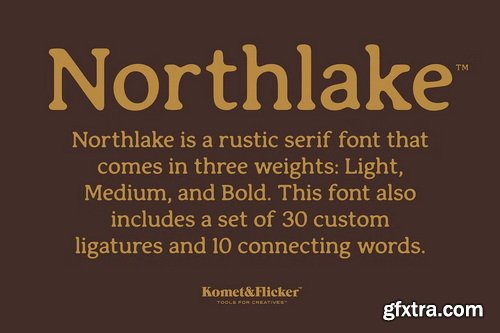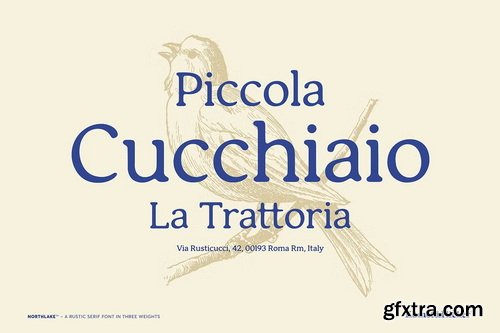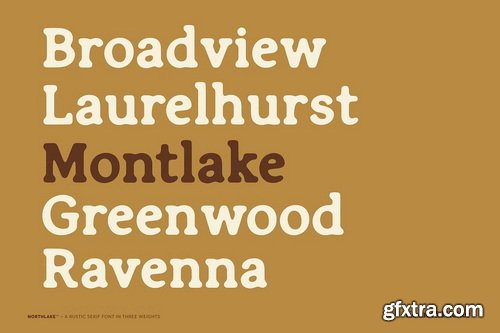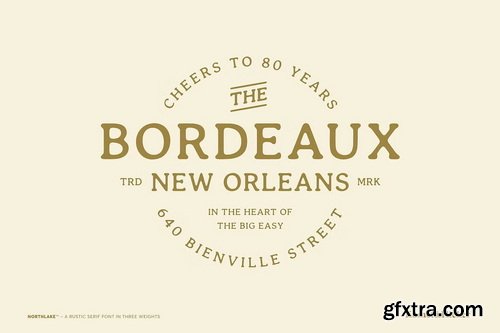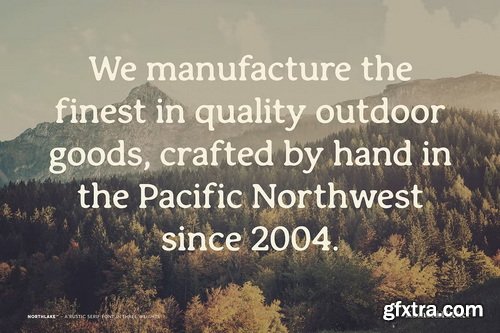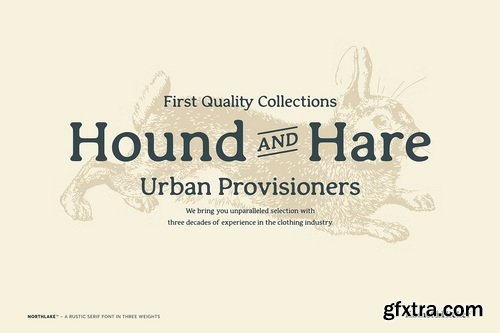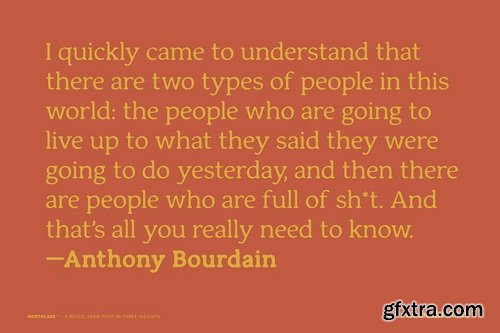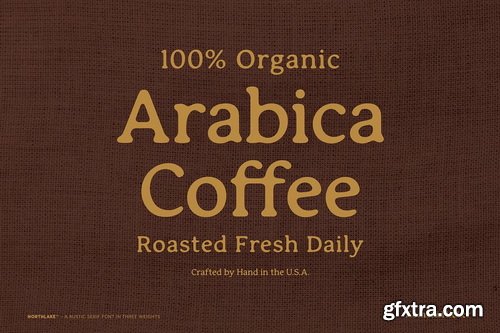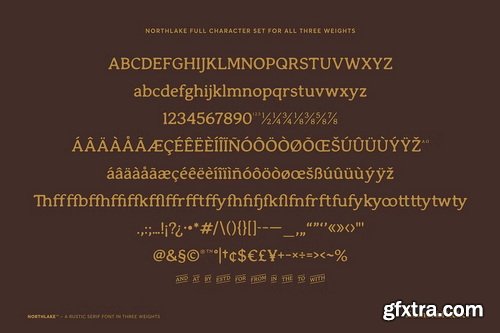
CreativeMarket - Northlake - A Rustic Serif Font
Introducing Northlake, a rustic serif font with a timeless charm. With its smooth, round edges and vintage appeal, Northlake evokes the warmth and authenticity of a well-worn classic. Whether you're designing bold headlines or crafting longer blocks of text, Northlake offers versatility and personality for any project. Available in three thoughtfully crafted weights: Light, Medium, and Bold, Northlake allows you to fine-tune your design with ease. Its rounded edges give each character a soft, approachable feel, while its sturdy serifs bring a sense of tradition and strength to your type.